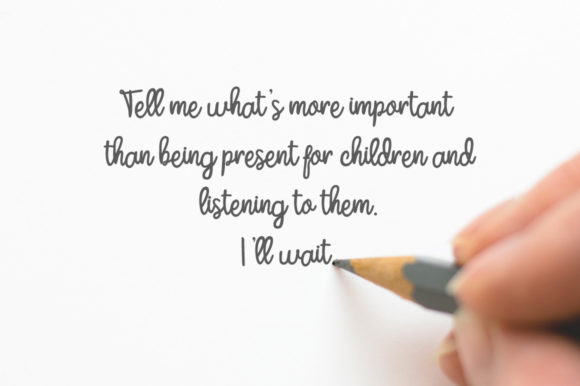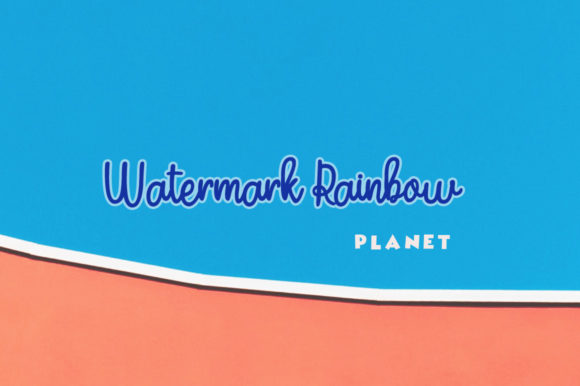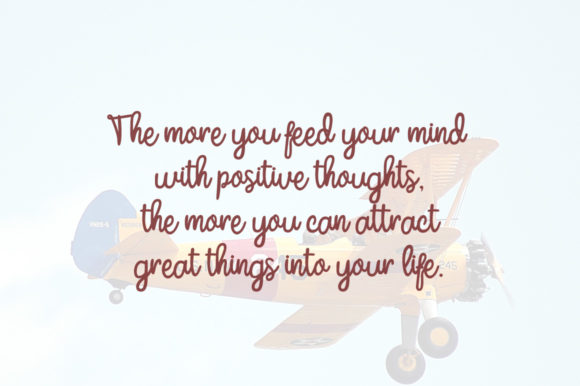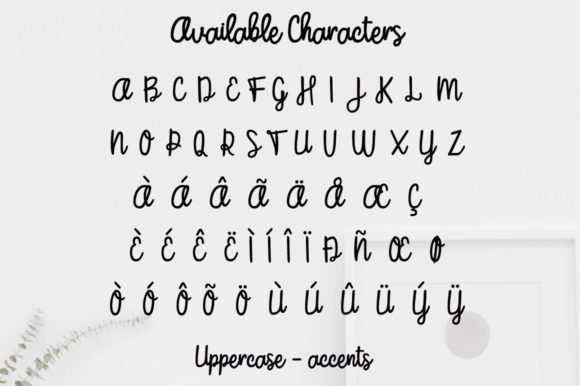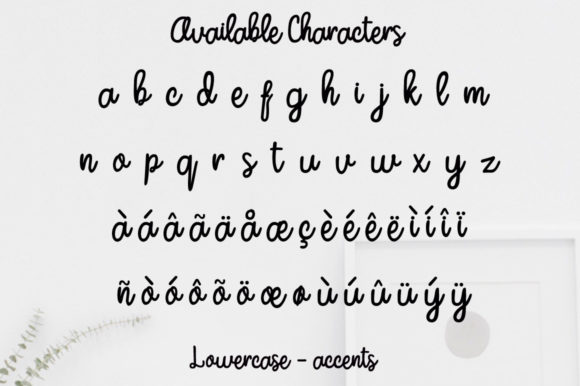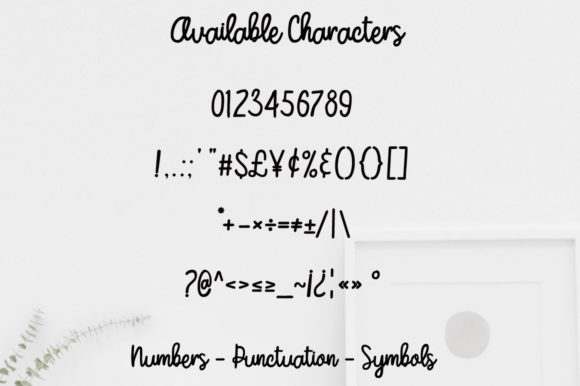
Negotar Font
About Negotar Font
Negotar is a bold handwritten script with a playful feel. It will elevate a wide range of design projects to the highest level, be it branding, headings, wedding designs, invitations, signatures, logos, labels, and much more!